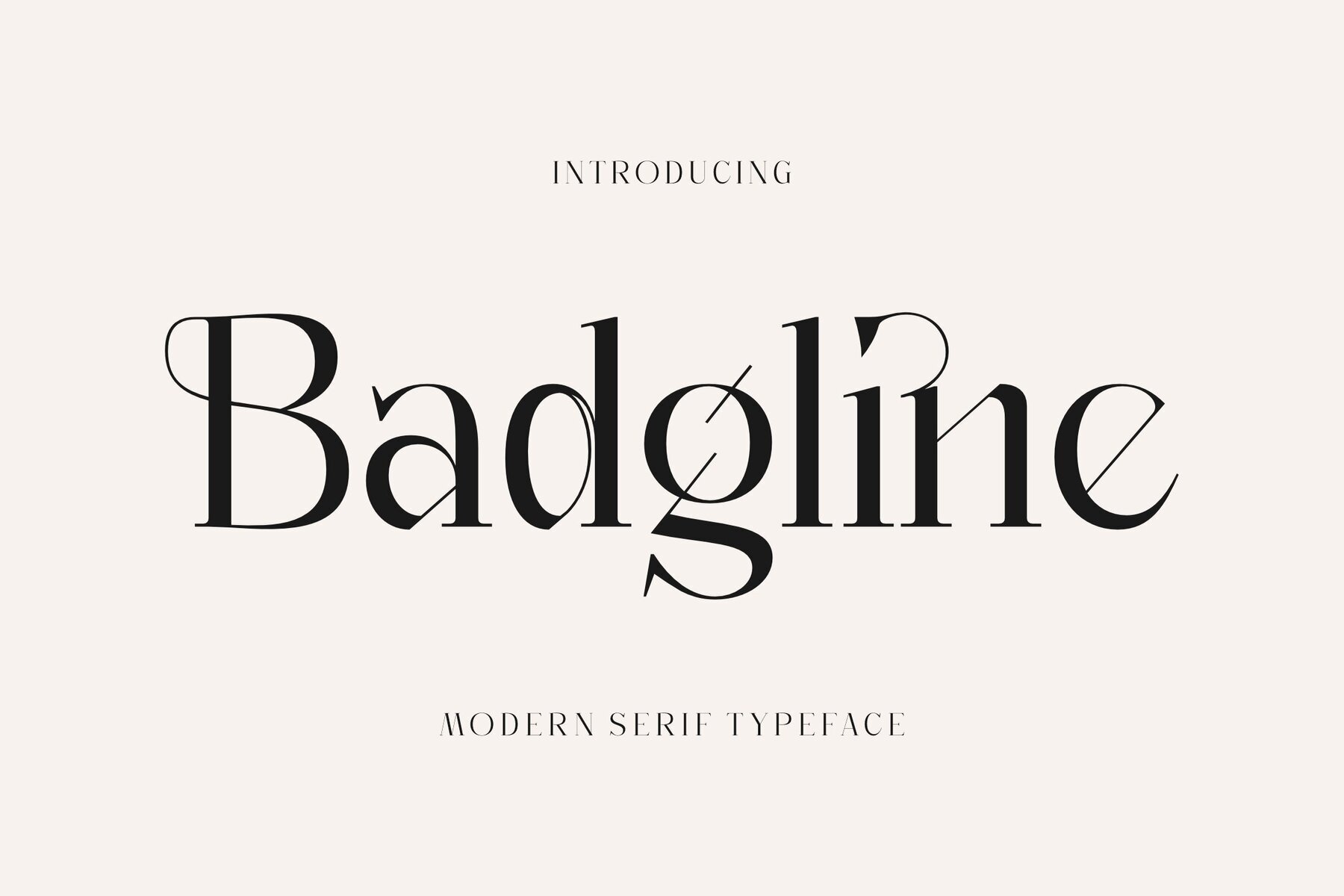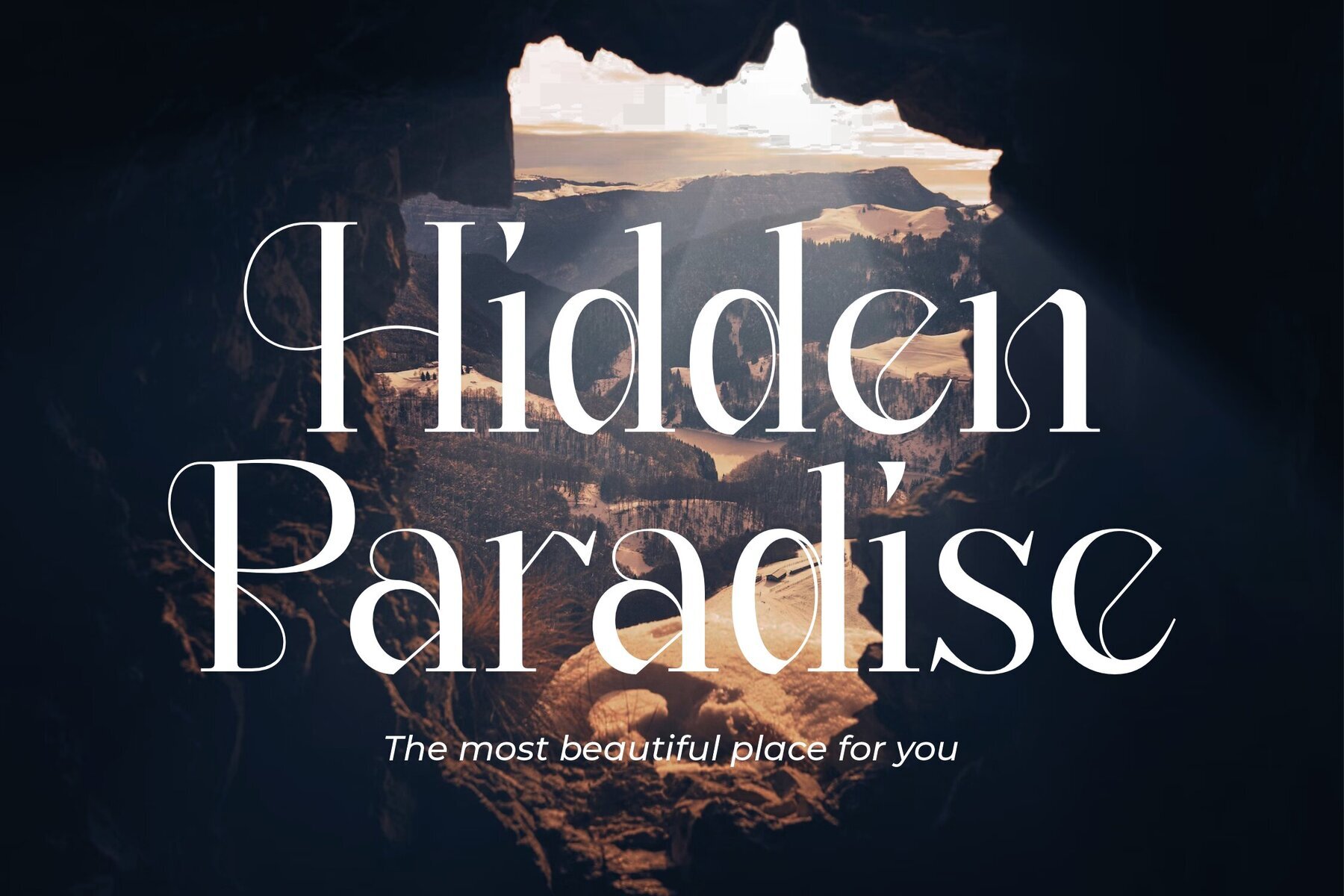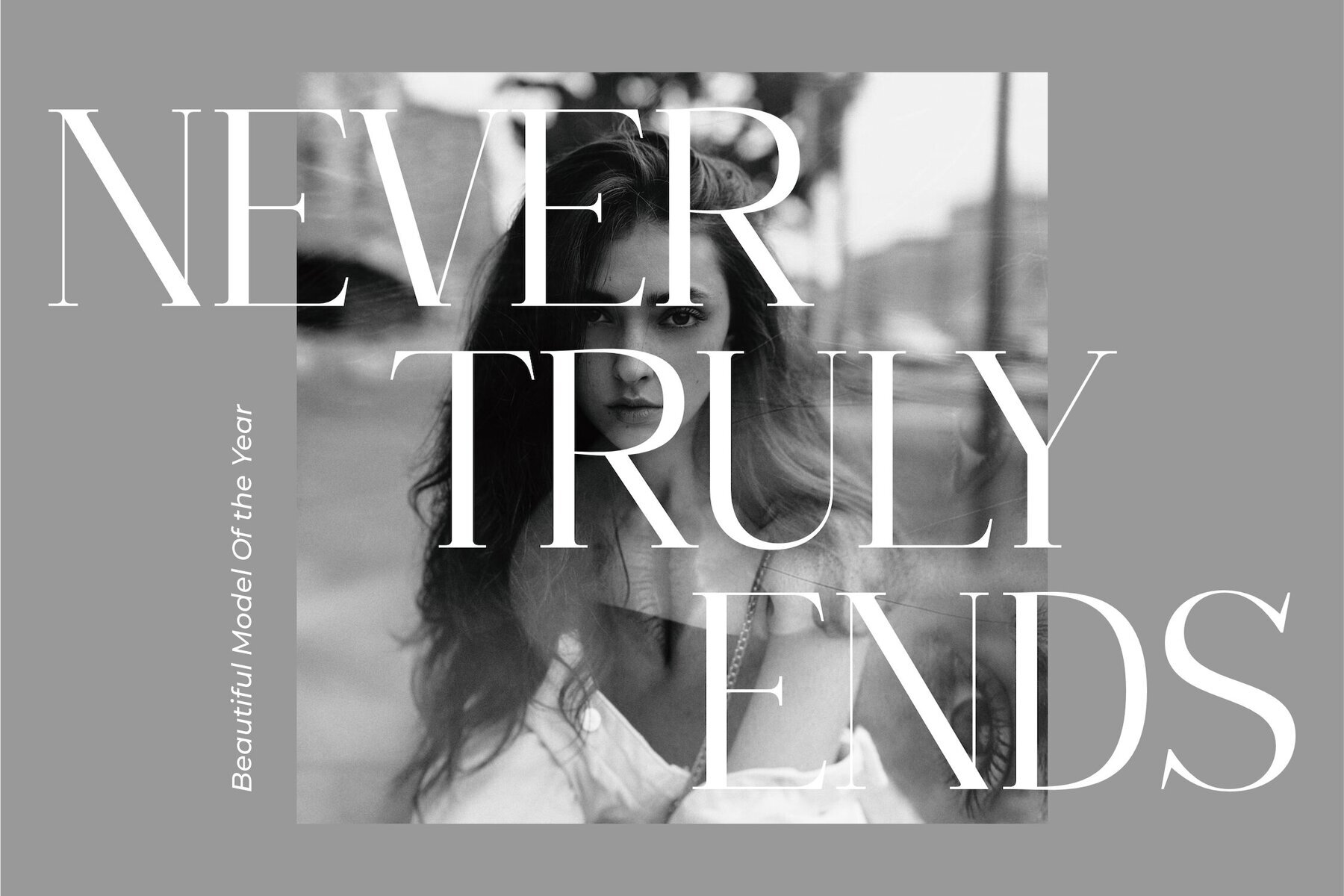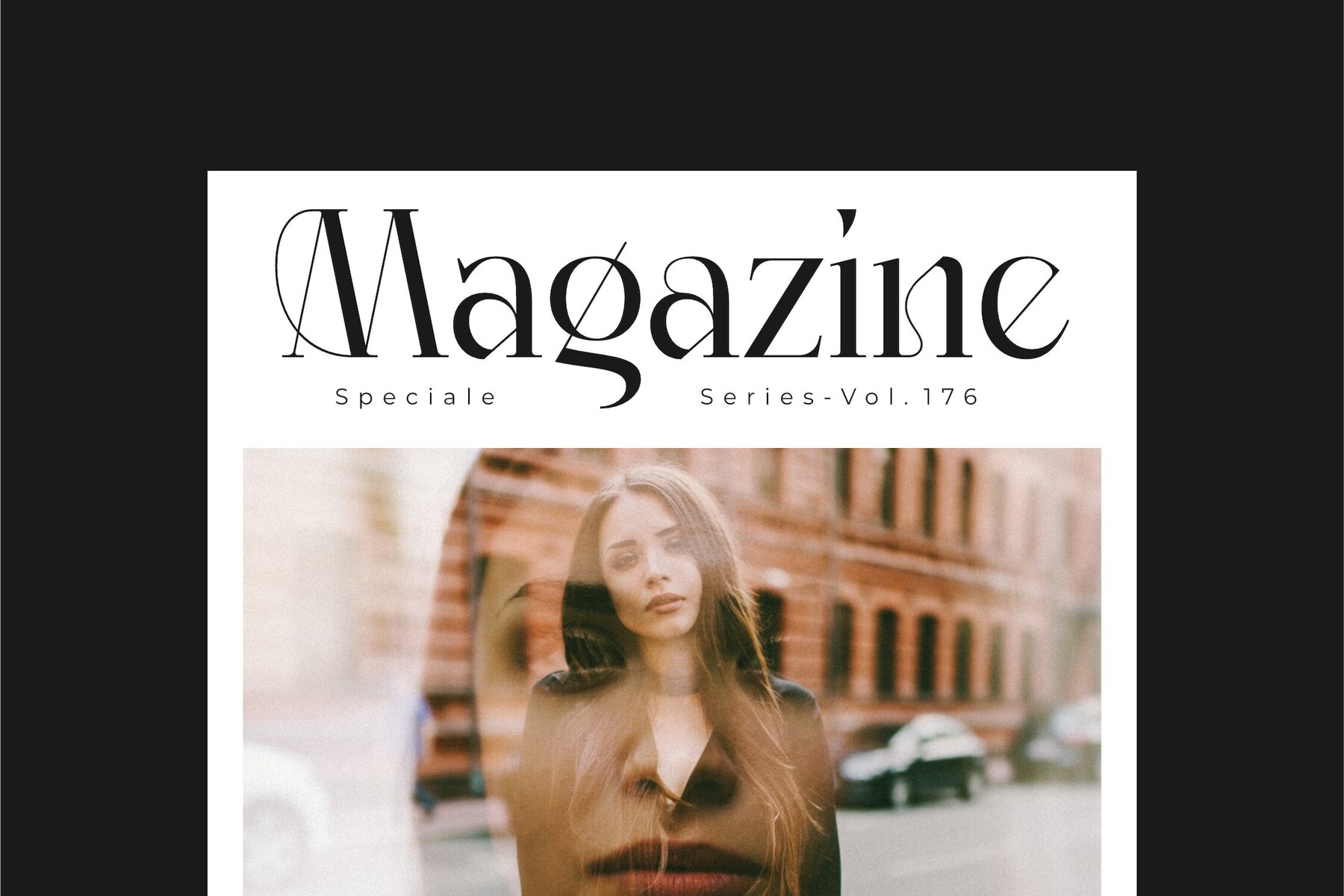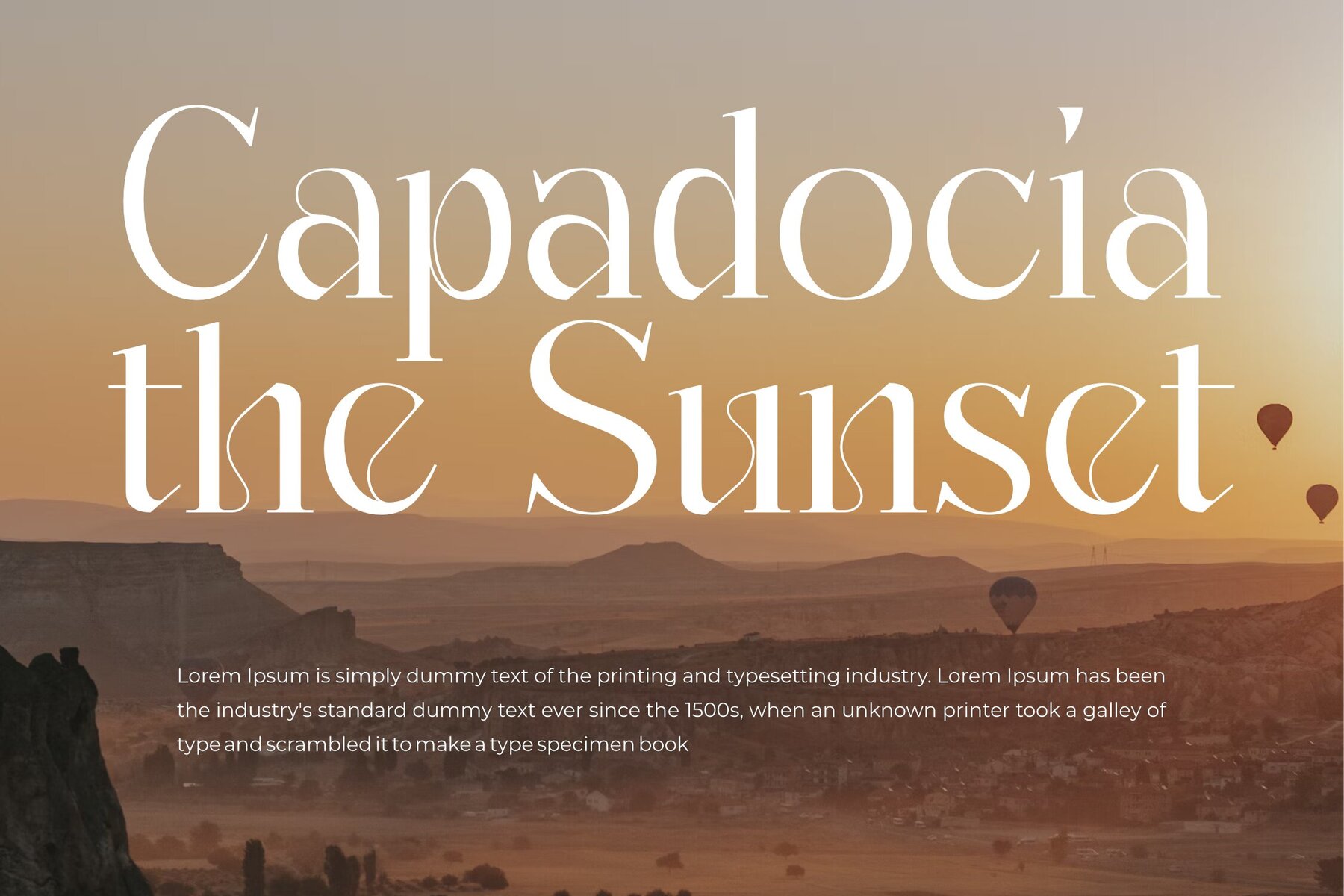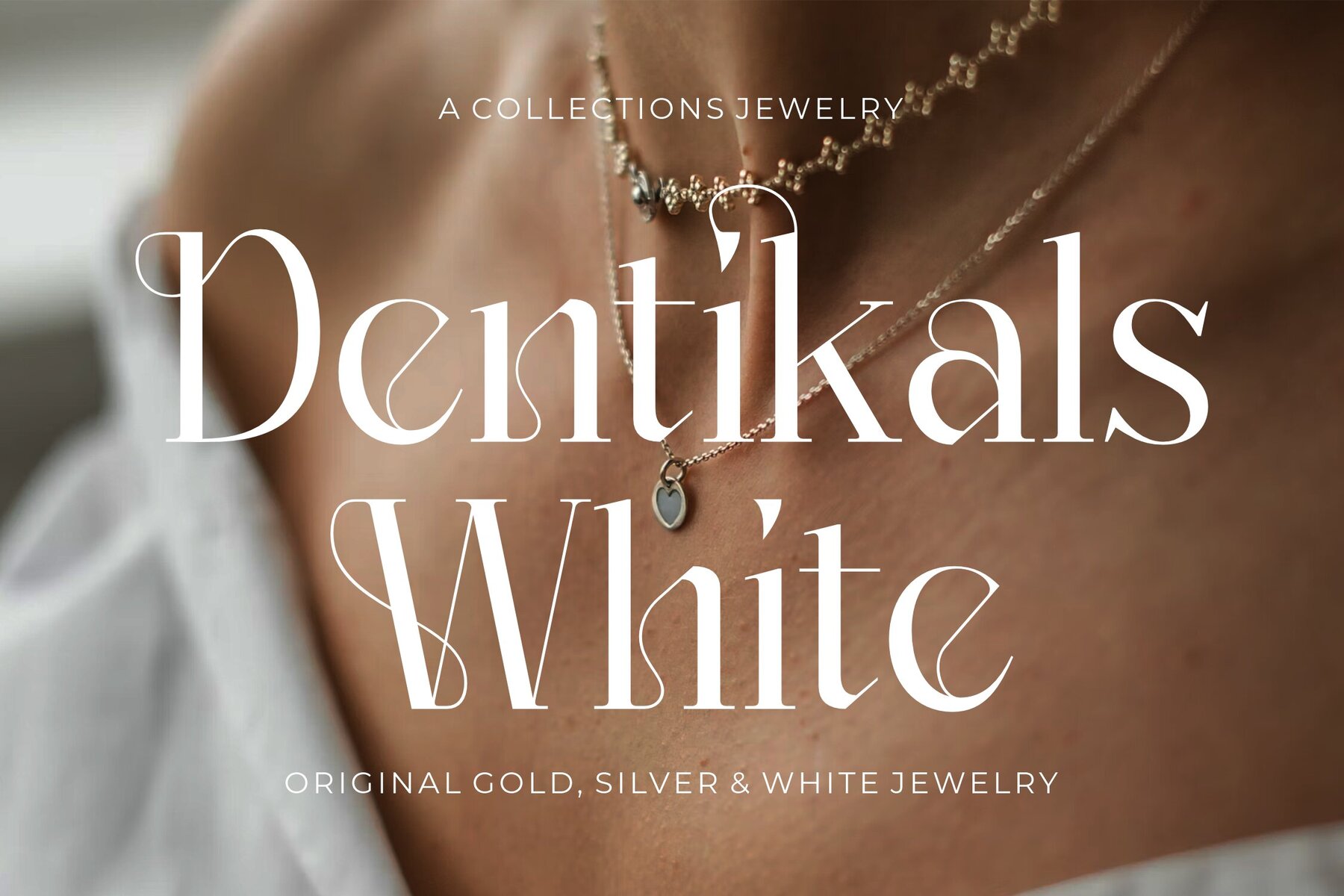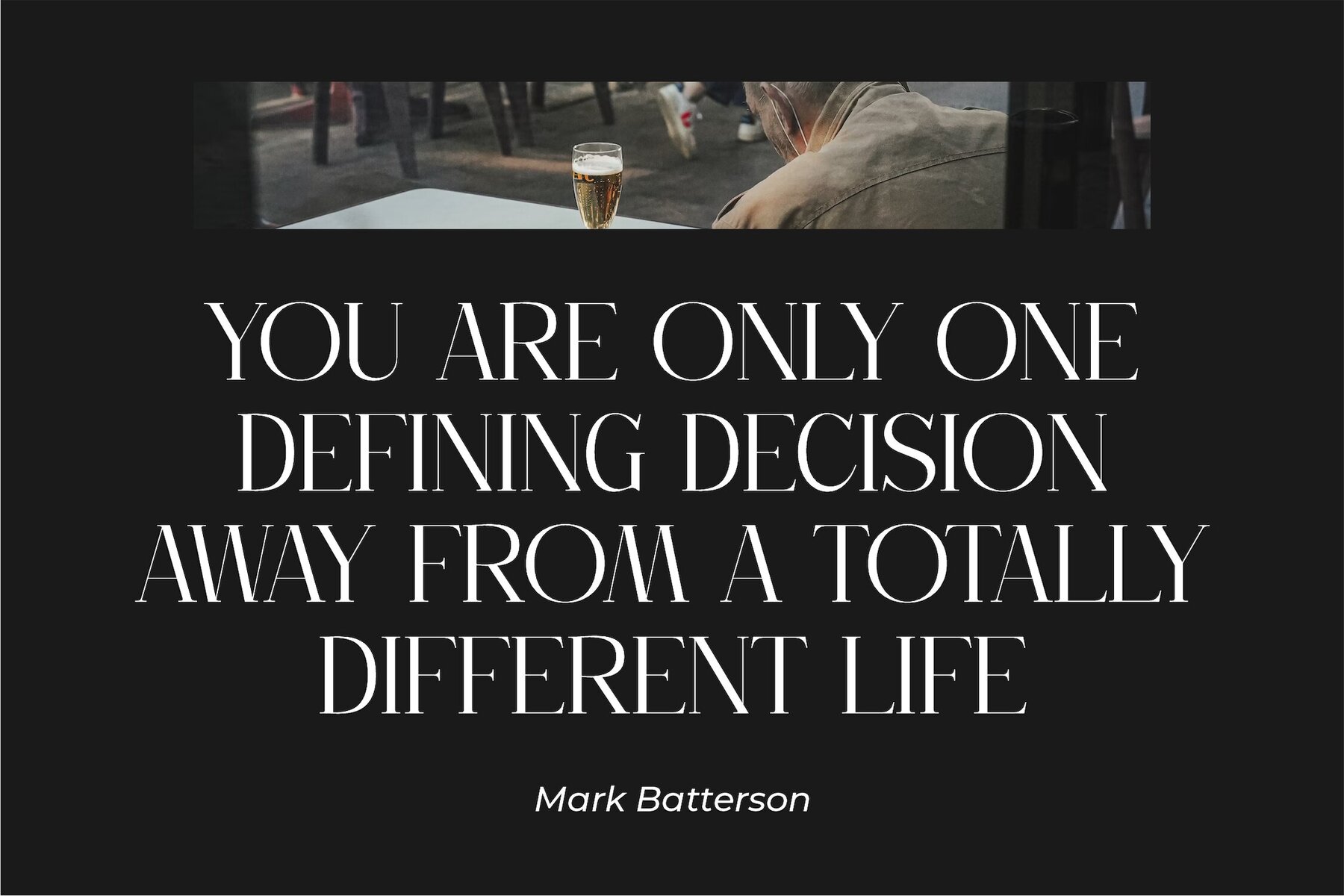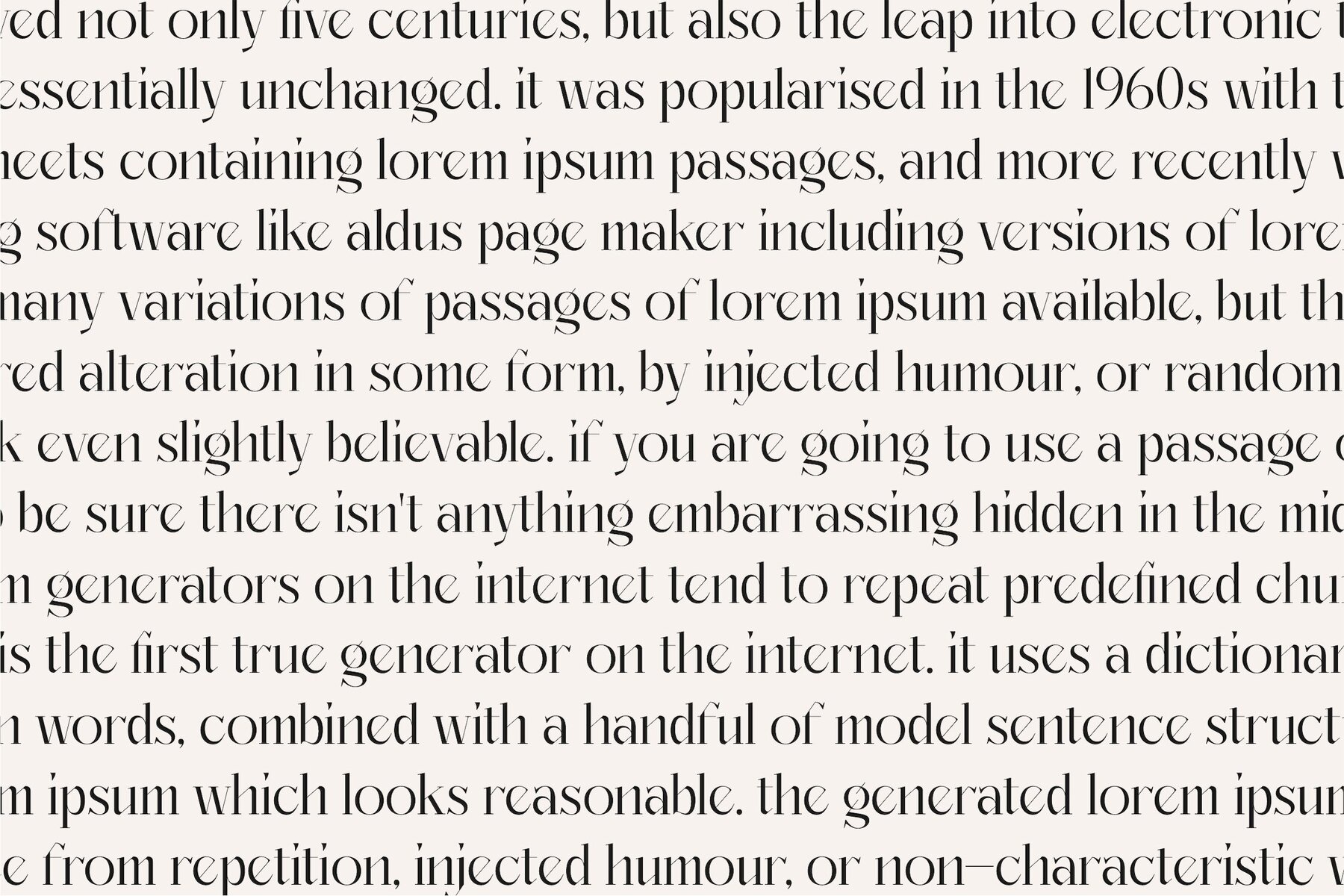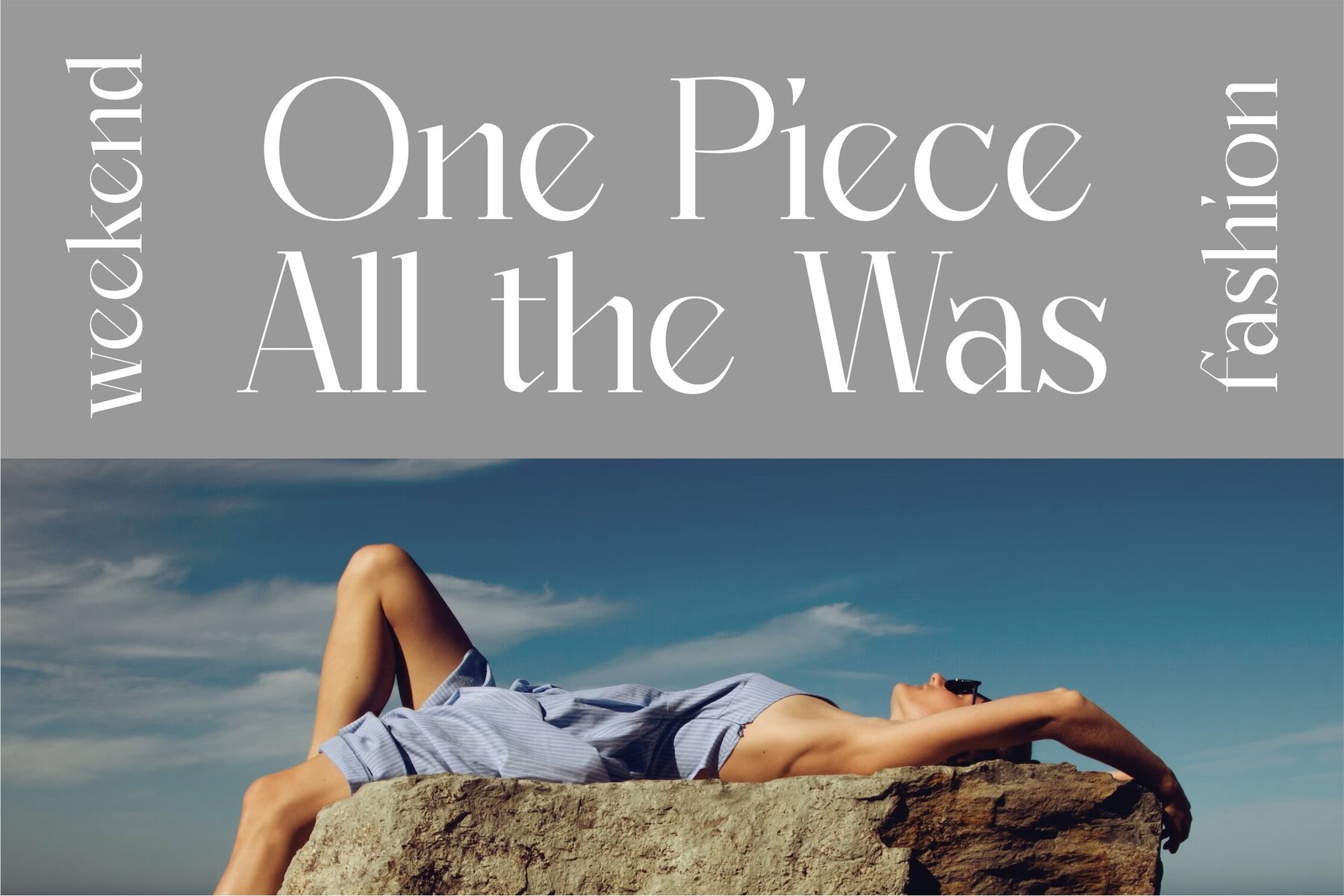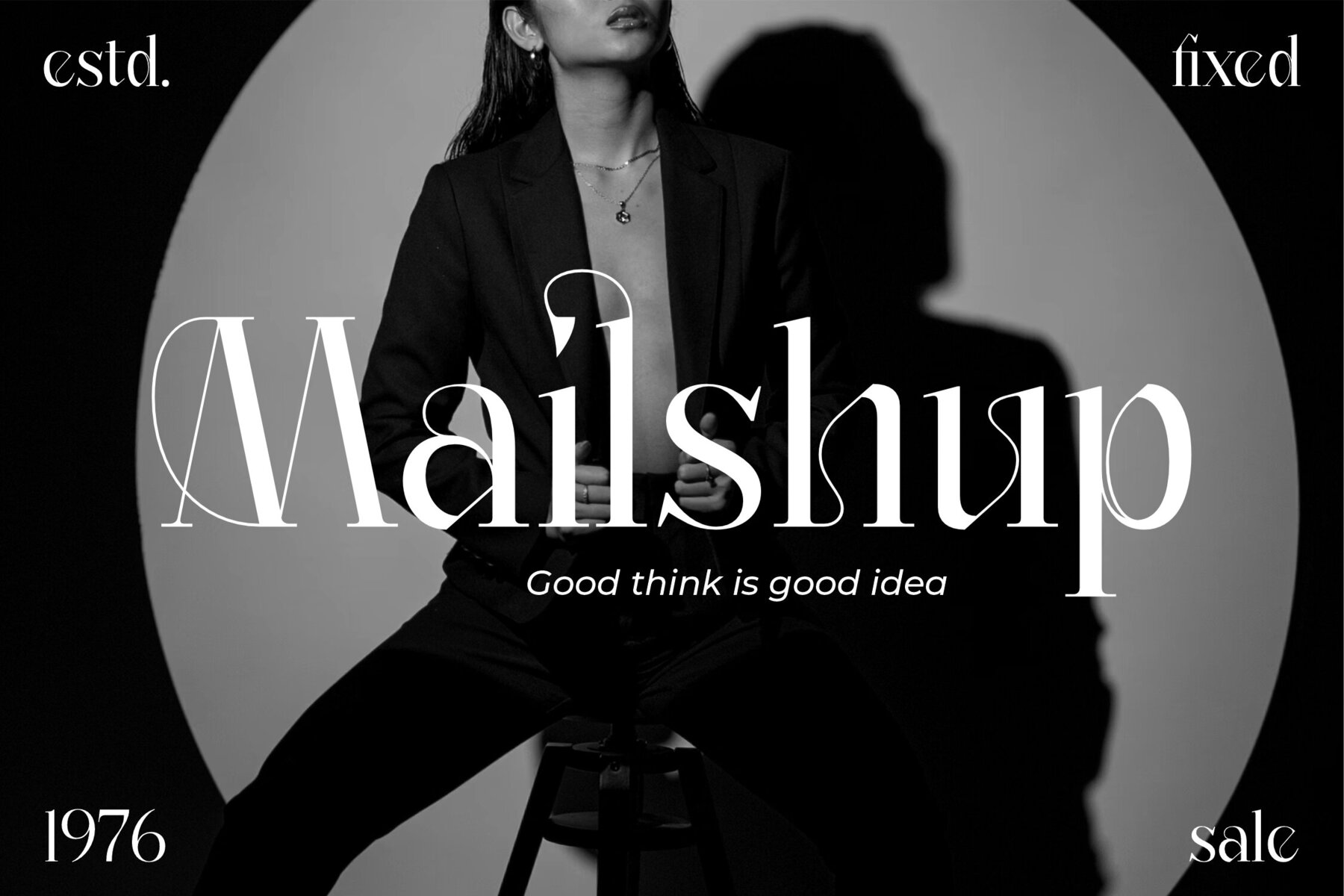
Badgline Font
Introducing Badgline, a meticulously crafted serif typeface that seamlessly blends modern style with classic elegance. Designed for those who appreciate luxury and sophistication, Badgline is your go-to choice for creating stunning logos, captivating book or movie titles, and eye-catching fashion brand designs. Its versatile charm makes it ideal for magazines, clothing lines, and much more.Badgline Typeface: Timeless Elegance and Modernity